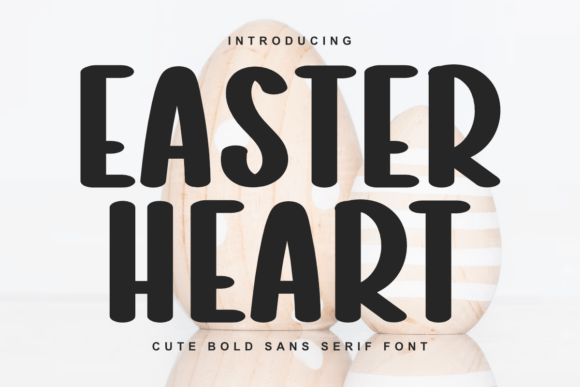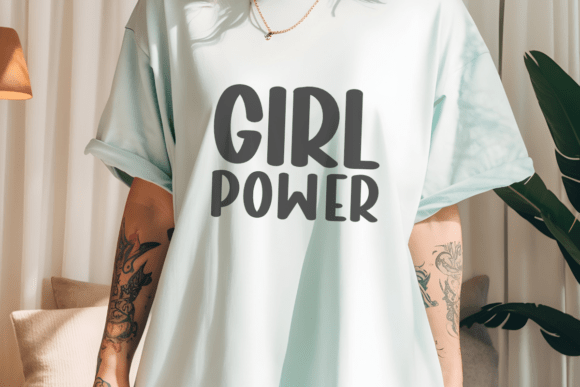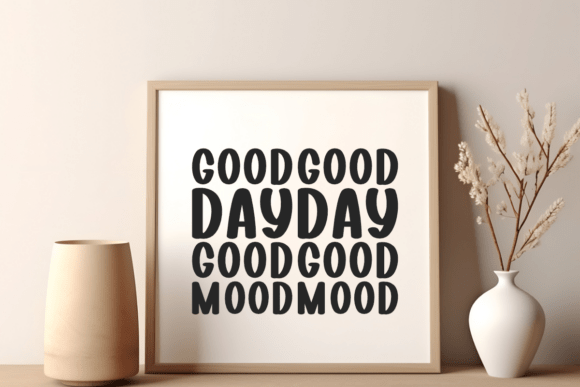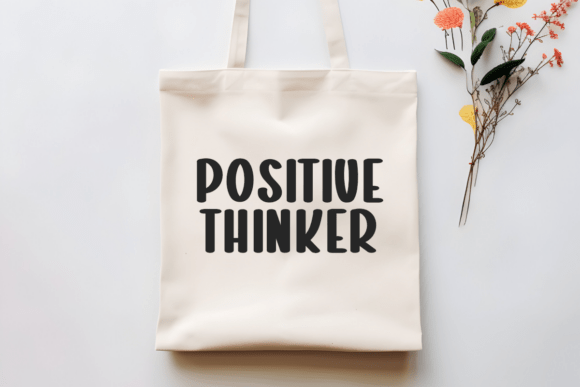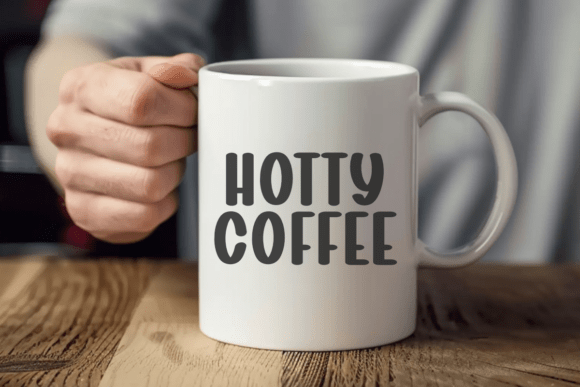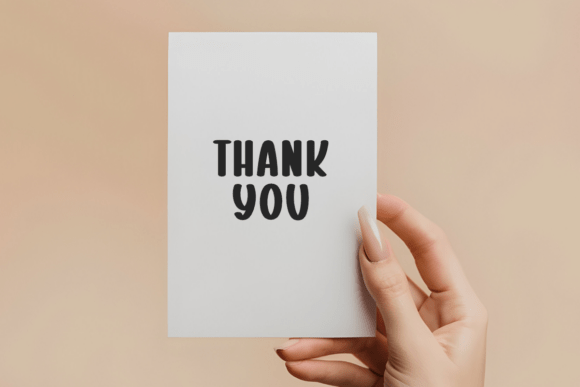
Adding a Touch of Whimsy to Your Creations: Easter Heart Font
As I sat at my craft table, surrounded by scraps of paper, glue, and glitter, I couldn’t help but feel a sense of excitement and anticipation. It was Easter, and I was determined to create the perfect decorations for my little ones. But then I stumbled upon it – a font that would change the game for me and my creative projects: Easter Heart Font. This adorable sans serif font was just what I needed to add a playful and cheerful touch to my craft projects.
Easter Heart Font is the perfect addition to any designer’s toolkit, offering a bold and cute style that’s ideal for making eye-catching titles, adorable quotes, and festive designs. Its chunky and playful style is sure to bring warmth and joy to any project, whether it’s a Cricut design, a greeting card, or a DIY print.
Easter Heart Font Key Features
- Unique Characteristics: Easter Heart Font features a distinctive, hand-drawn design with a playful and whimsical feel, making it perfect for designs that require a touch of warmth and personality.
- Legibility: Despite its decorative nature, Easter Heart Font remains highly legible, even at smaller sizes, ensuring that your designs remain clear and readable.
- Language Support: Easter Heart Font supports a wide range of languages, including Latin, Cyrillic, and Greek alphabets, making it a versatile choice for global designs.
Easter Heart Font Review
I recently had the chance to work with the Easter Heart Font, and I must say it’s a unique addition to any design project. ✨ The playful, handwritten style is sure to add a touch of whimsy to any text. The font is perfect for spring-themed designs, Easter celebrations, or even just a fun way to add some personality to a quote or slogan.
Some of the things that stood out to me about the Easter Heart Font include:
- ✨ The hand-drawn feel adds a lot of character to text, making it stand out in designs.
- ✨ The font is highly customizable, with a wide range of sizes and styles available.
- ✨ The Easter Heart Font is perfect for creating a sense of nostalgia and warmth in designs.
- ⚠️ The font may not be suitable for formal or professional designs, as its playful style can come across as immature.
- ⚠️ The font’s customization options can be overwhelming, making it difficult to find the perfect style for a project.
Overall, I would recommend the Easter Heart Font for designers looking to add a touch of personality to their designs. While it may not be the best fit for every project, its unique style and customization options make it a valuable addition to any design toolbox.
The Easter Heart Font is perfect for creating Easter-themed designs, such as:
- Greeting cards and invitations
- Social media posts and graphics
- Vector illustrations and graphics
- Presentation slides and documents